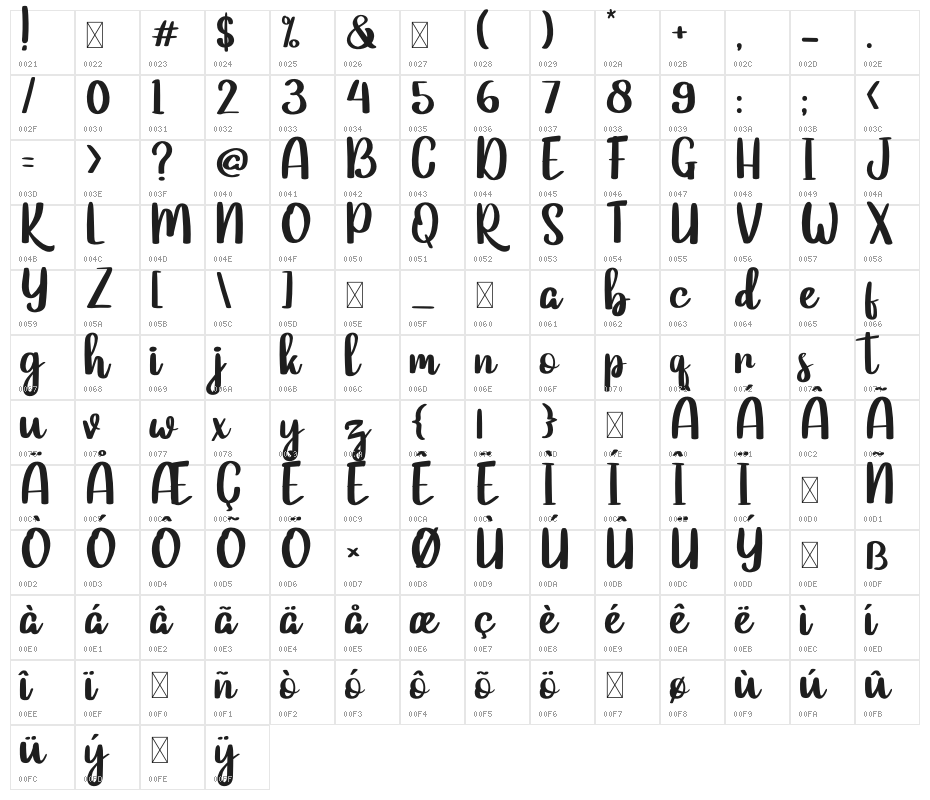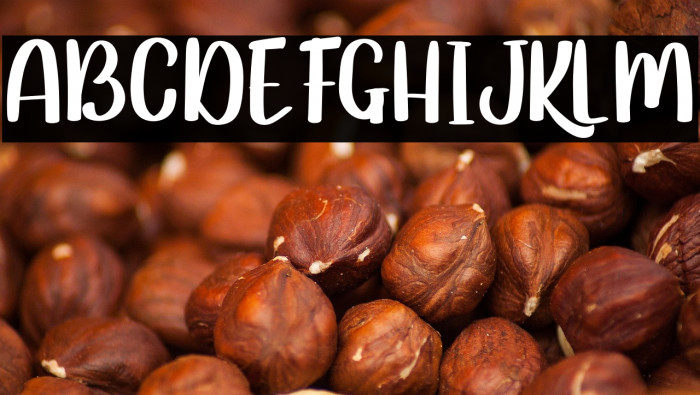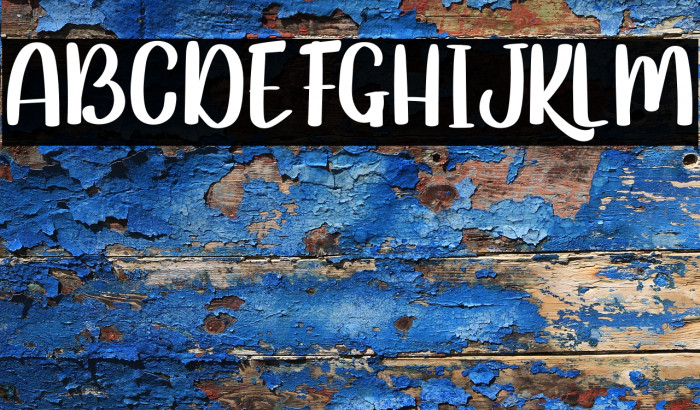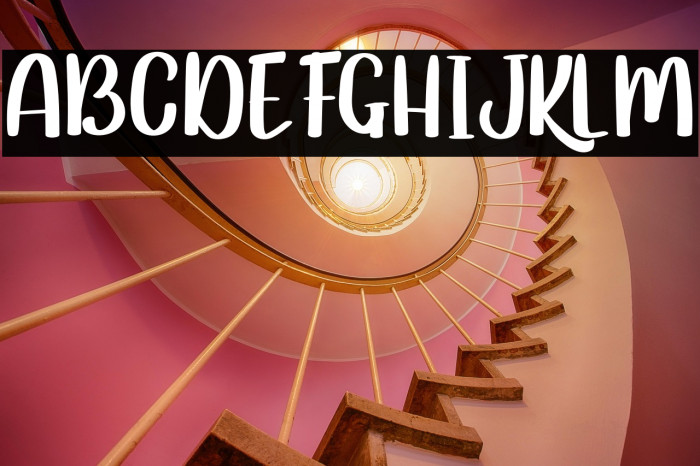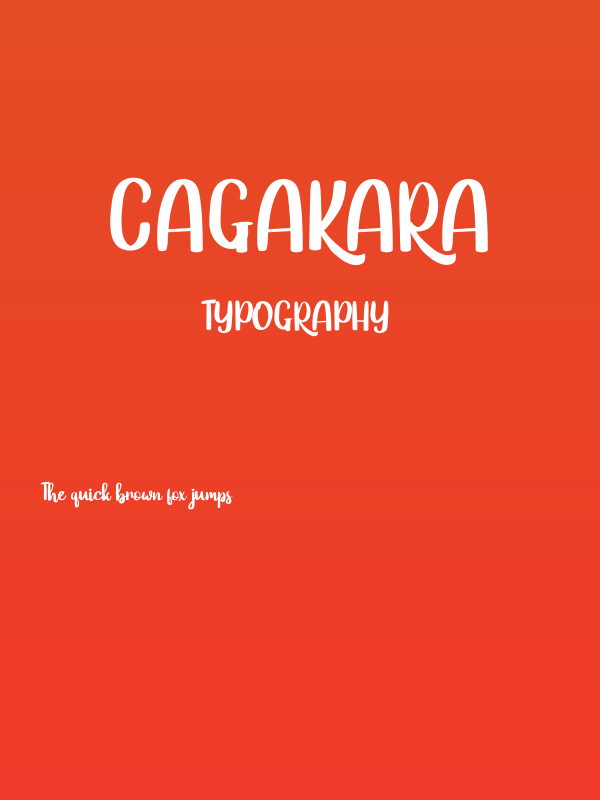
Cagakara Font
Cagakara Description
This font features a bold and playful script style with a handwritten appearance. The letters are characterized by their thick, rounded strokes and smooth curves, giving them a friendly and approachable look. The uppercase letters maintain a consistent height, while the lowercase letters exhibit a slight slant, adding a dynamic flow to the text. The numbers are equally bold, matching the style of the letters, and the special characters are designed to complement the overall aesthetic. This font's lively and informal style makes it ideal for projects that require a personal touch.
| Proposed Projects | Ideal for greeting cards, invitations, posters, and branding that require a personal and friendly touch. |